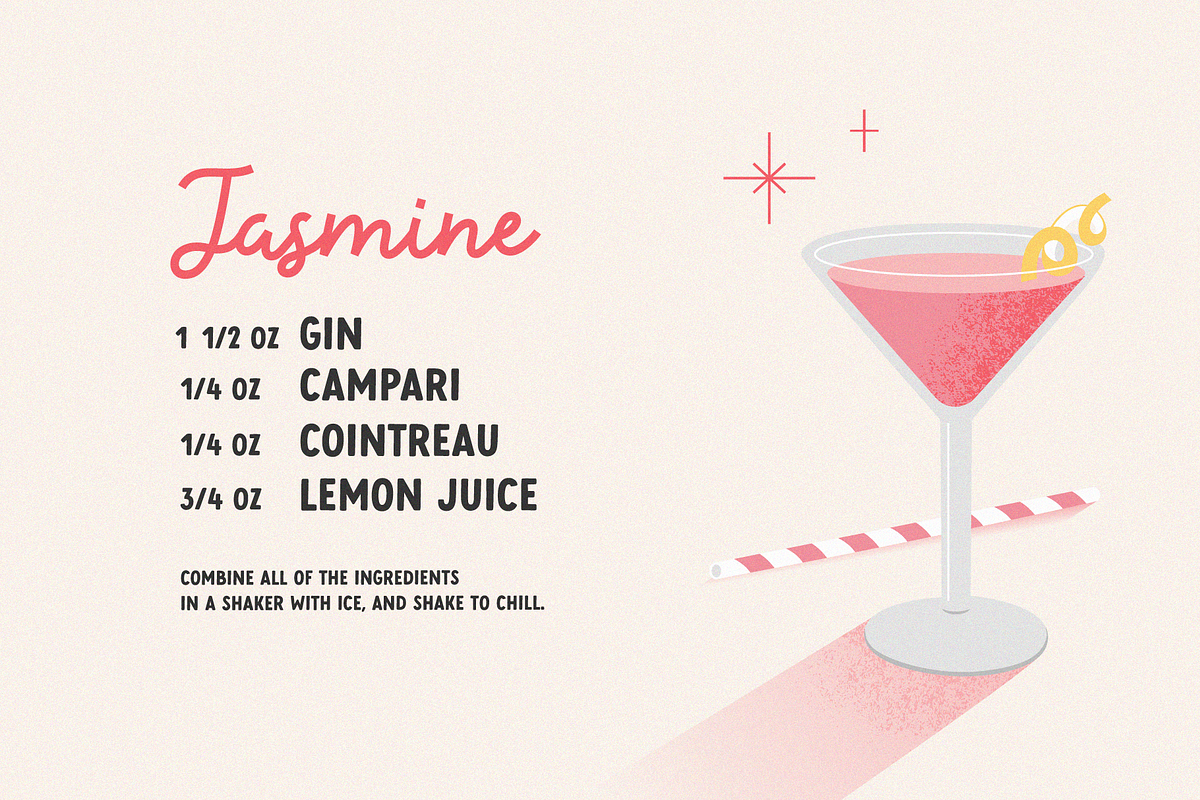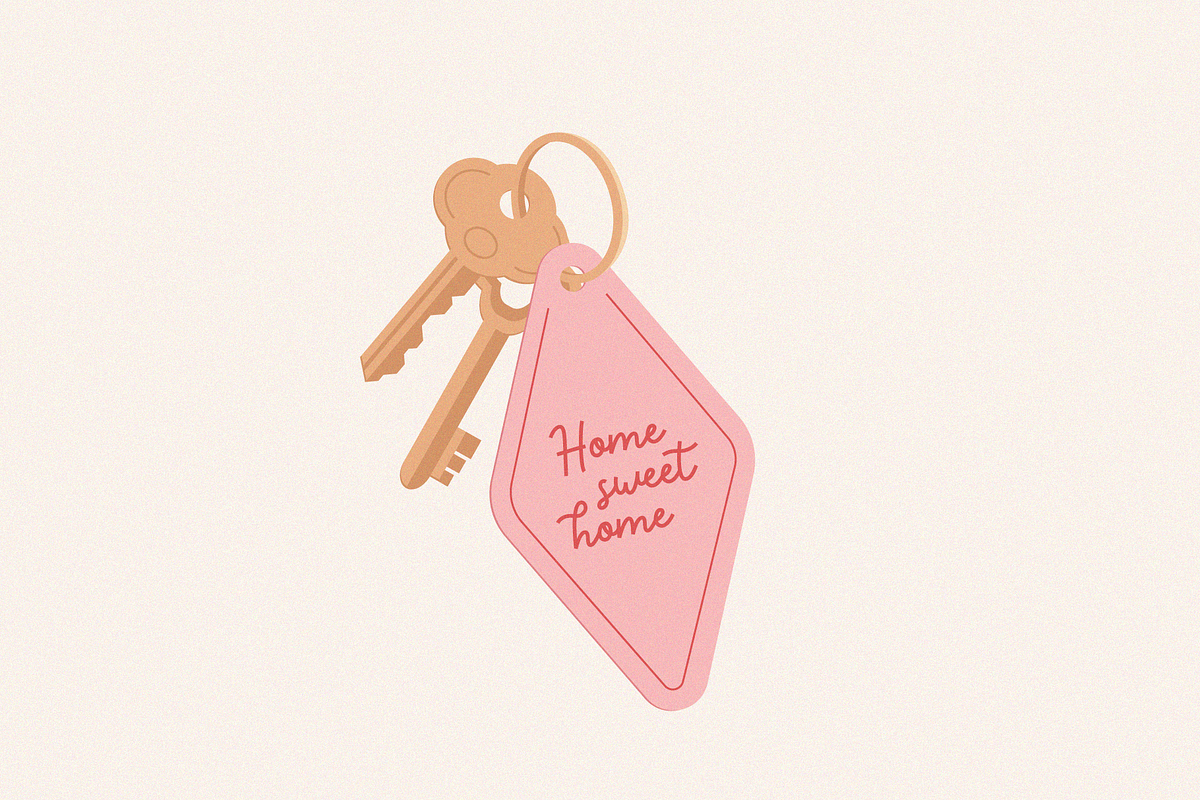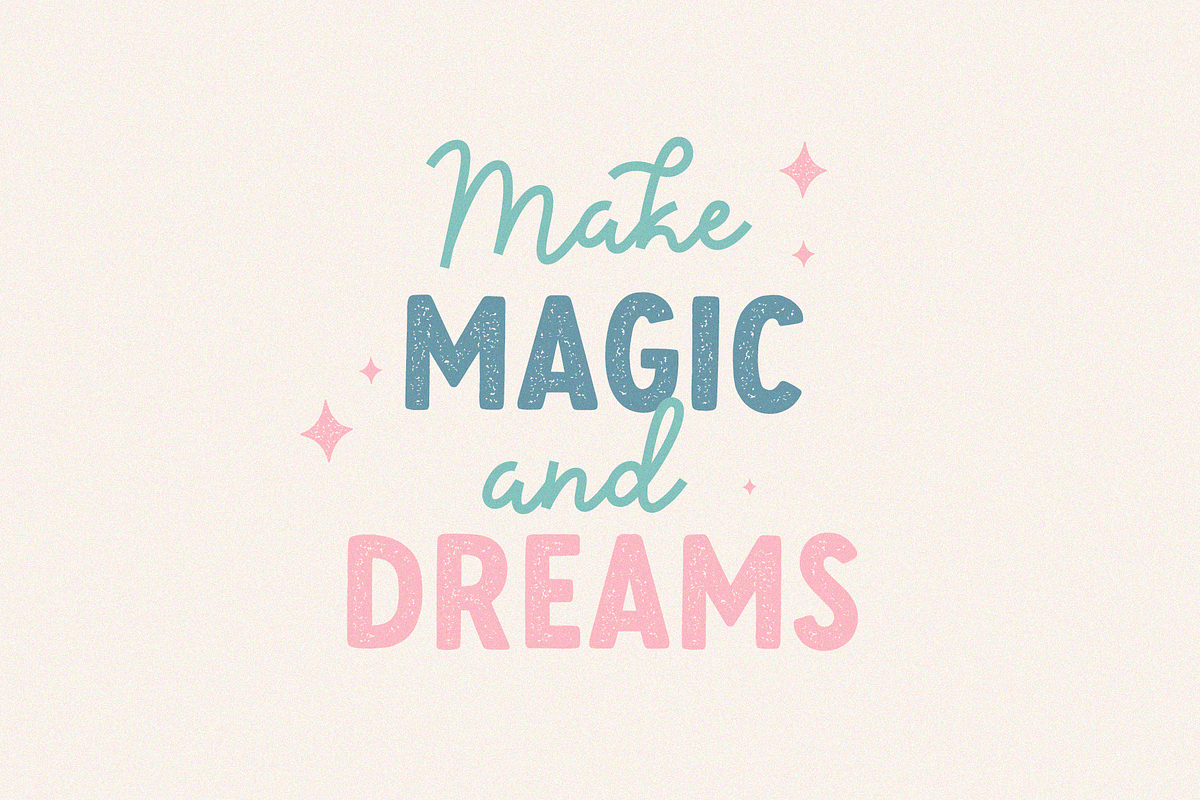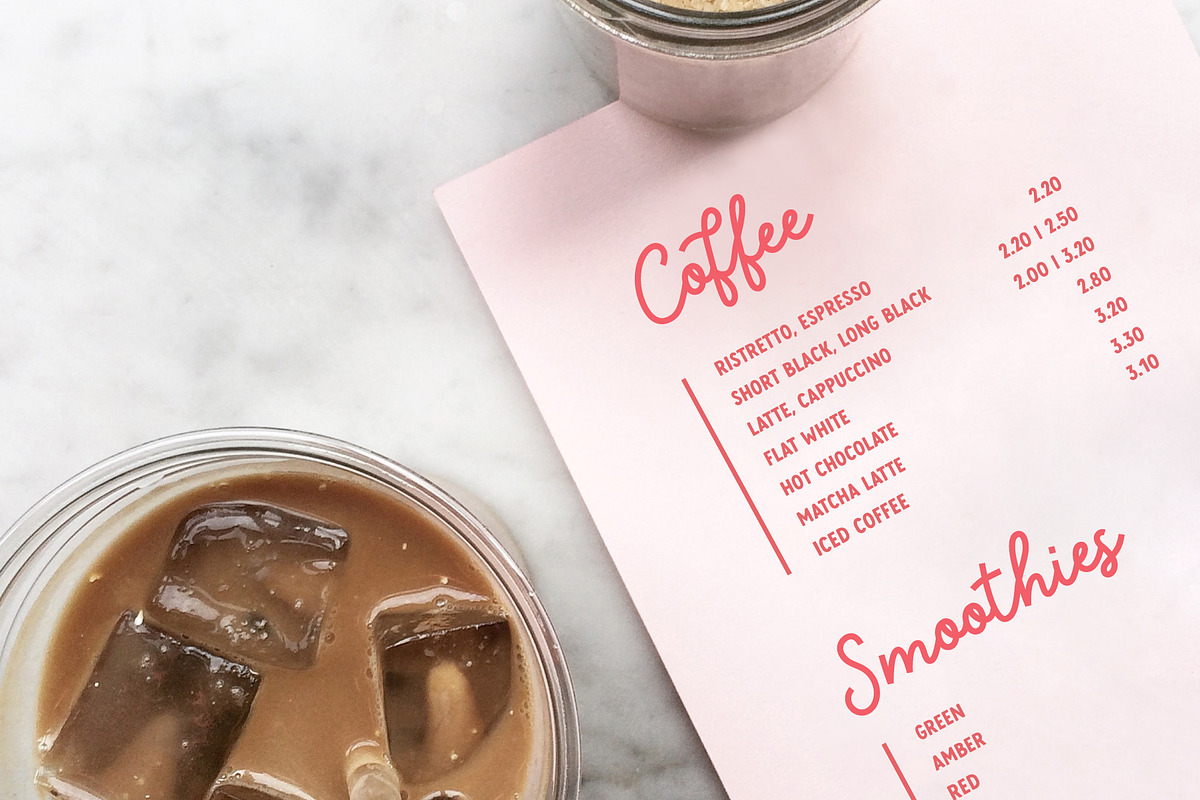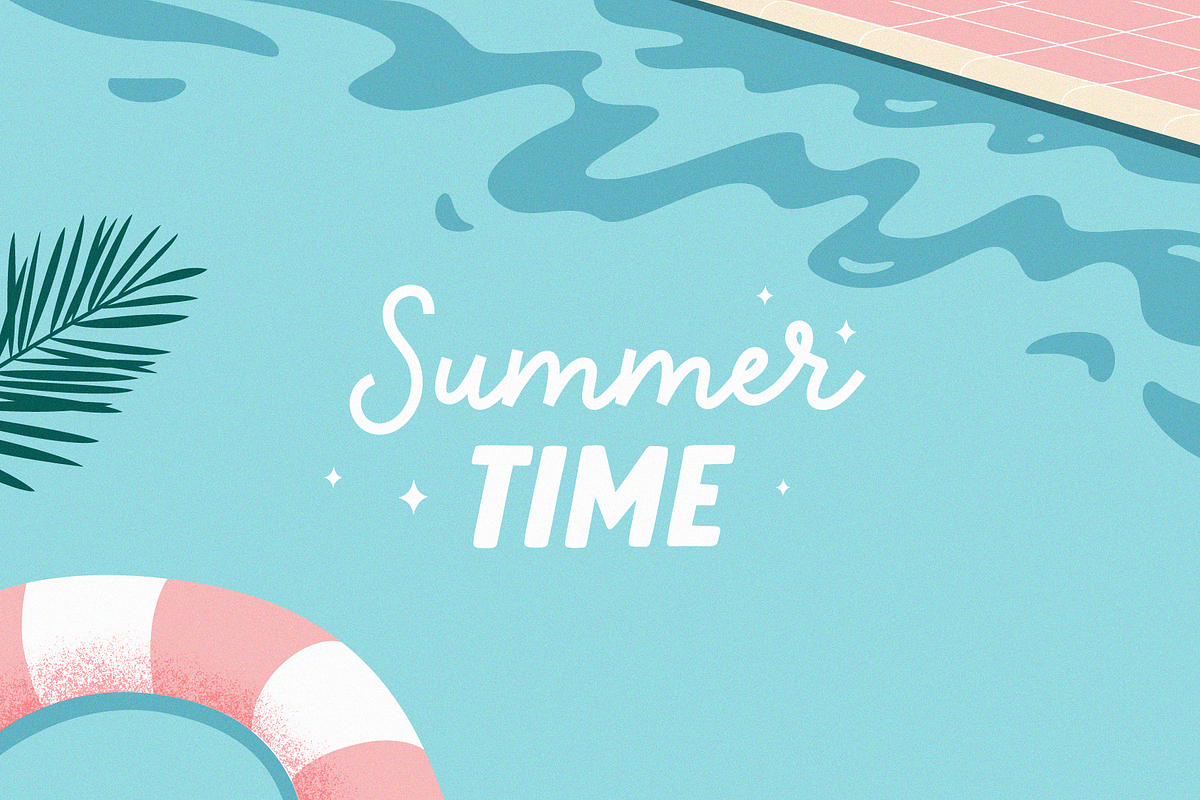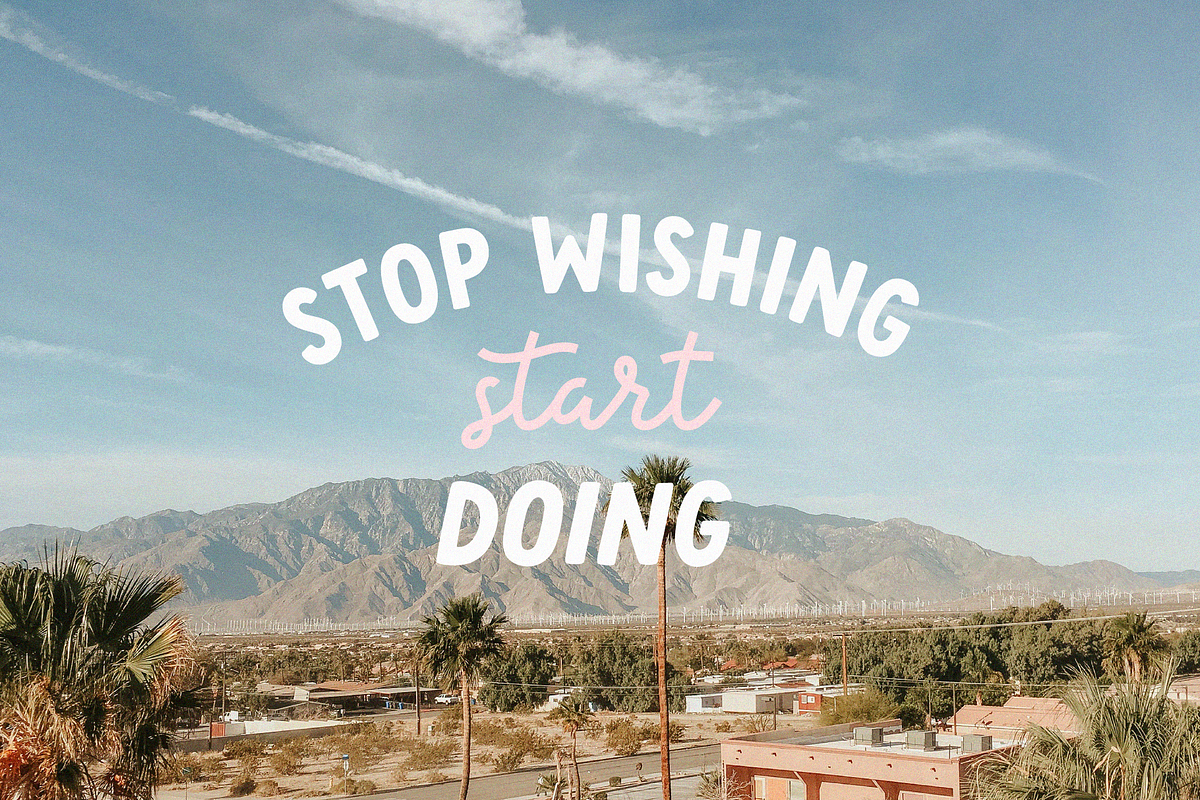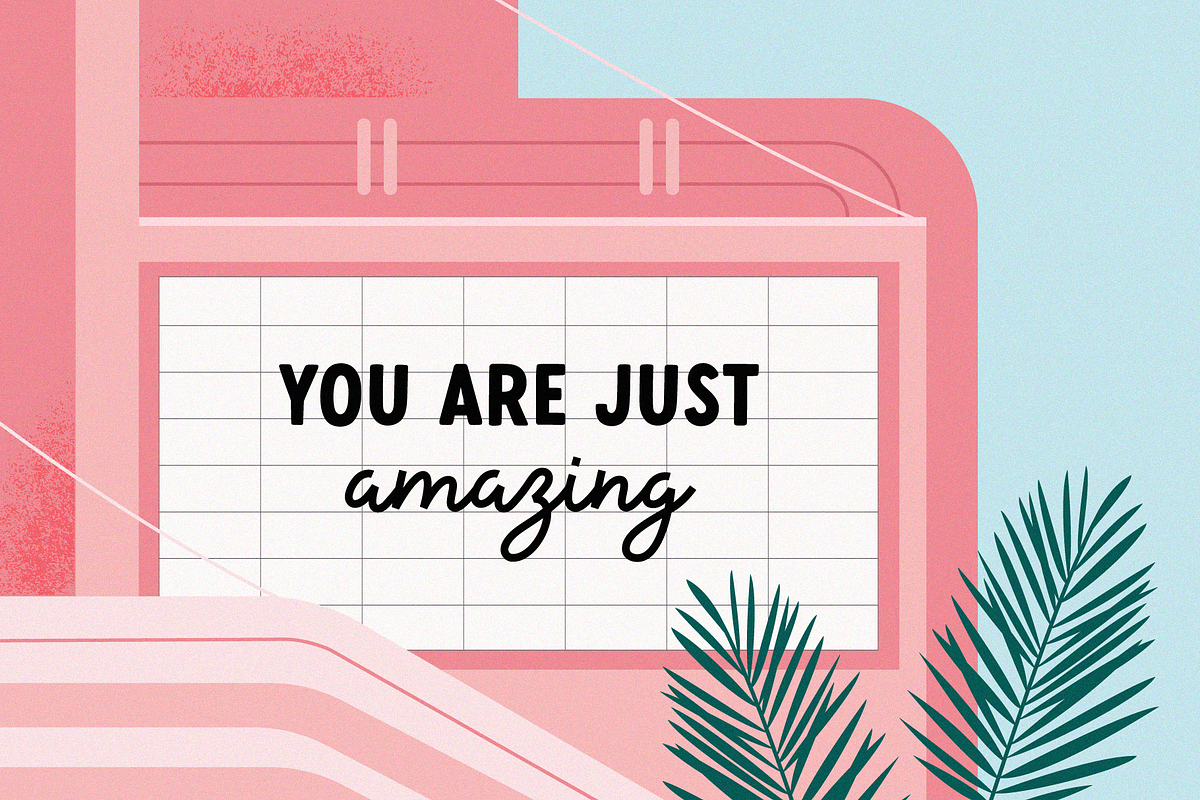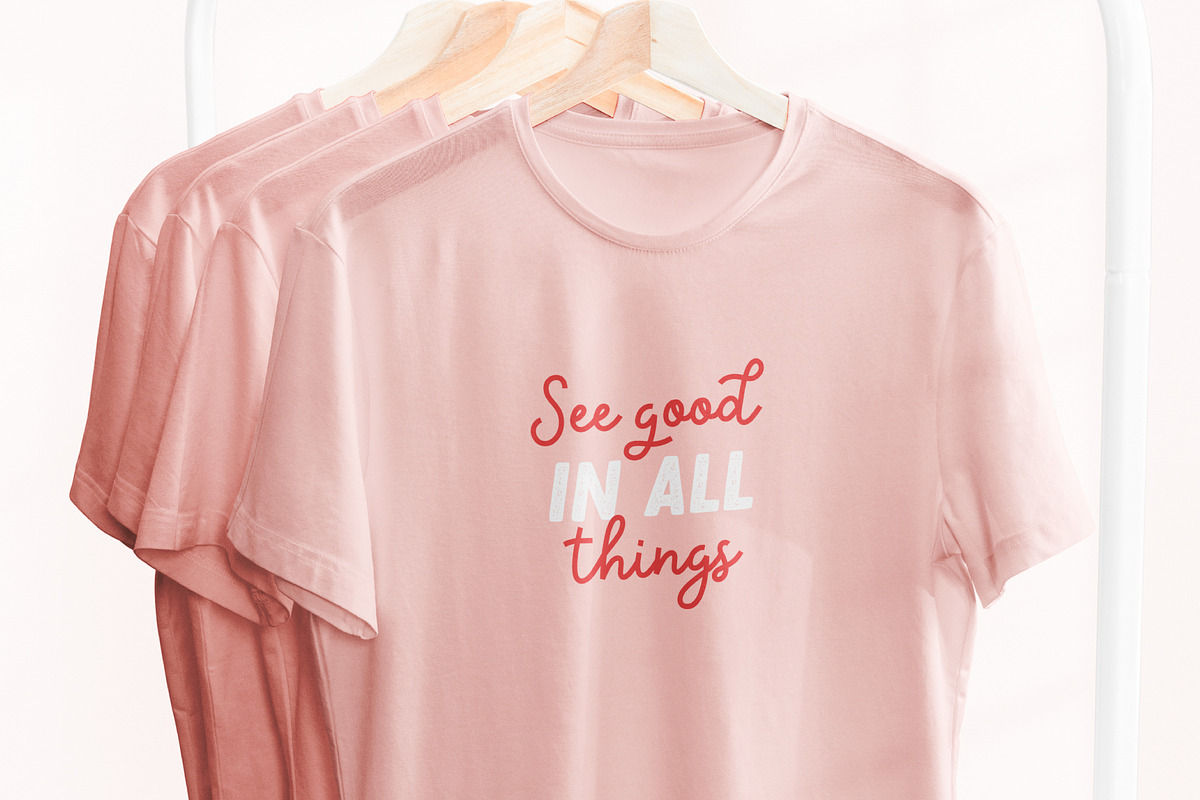
Motel California | Font duo
Motel California will be perfect for books, greeting cards, logos, posters or anything that requires a fun and happiness look!